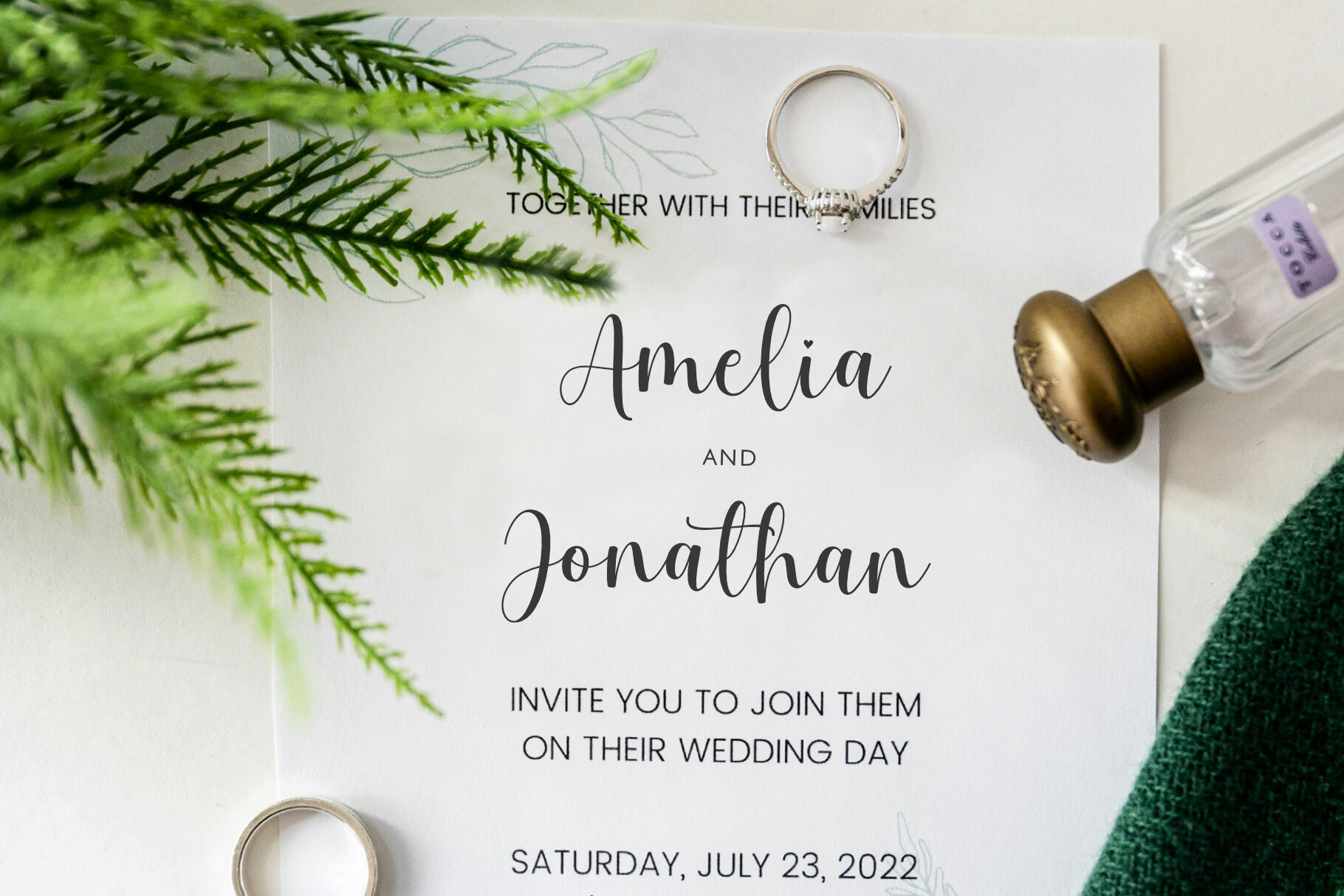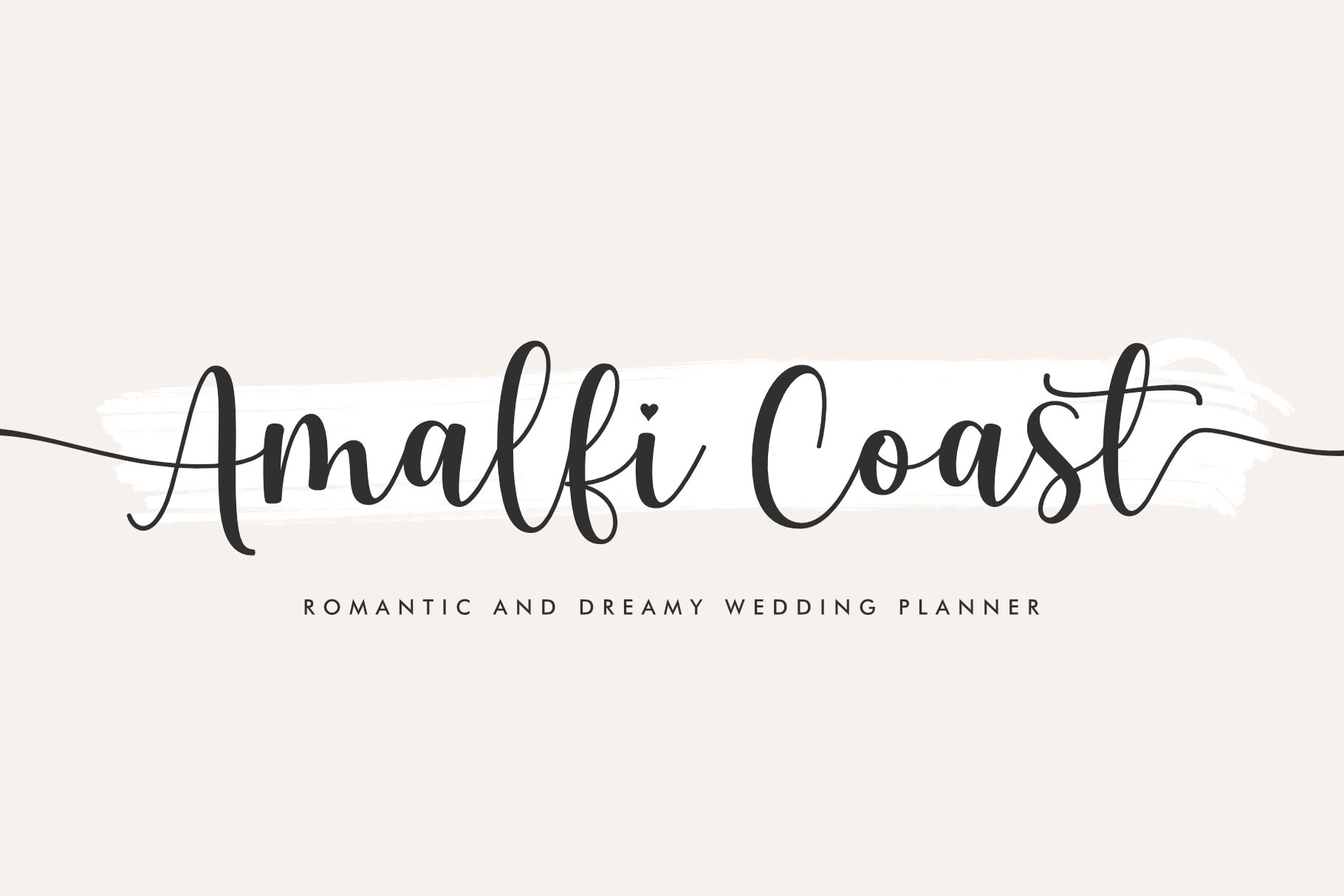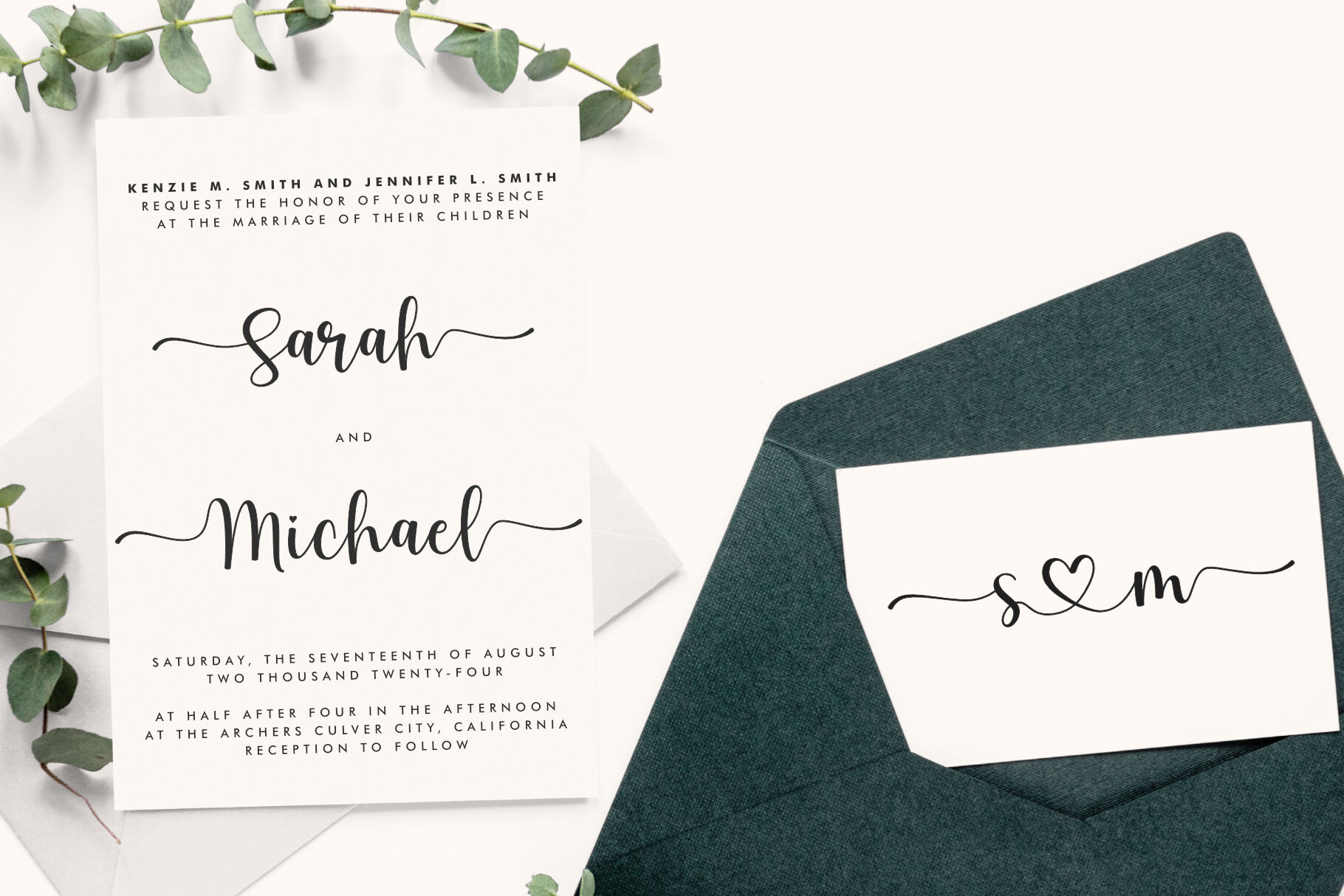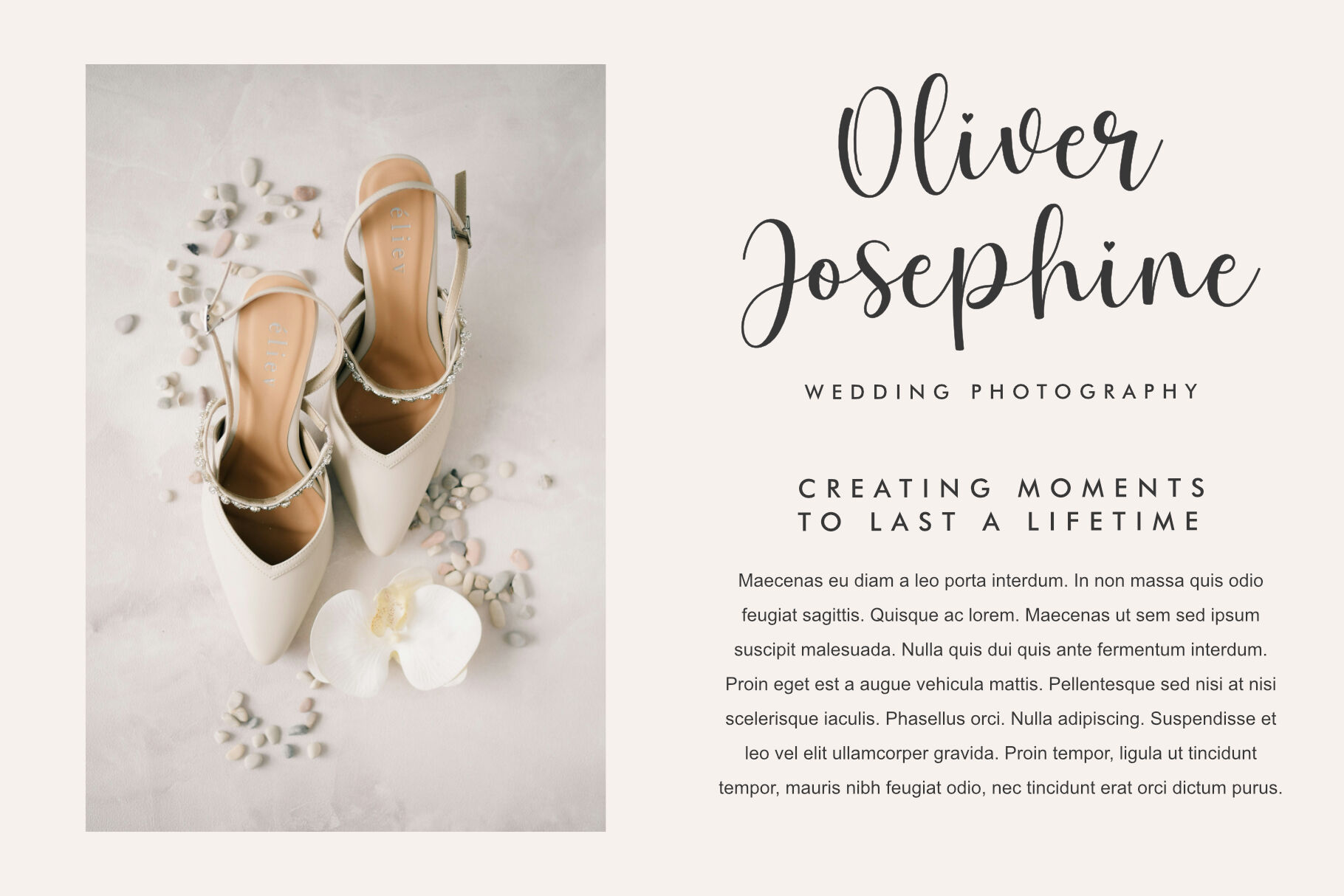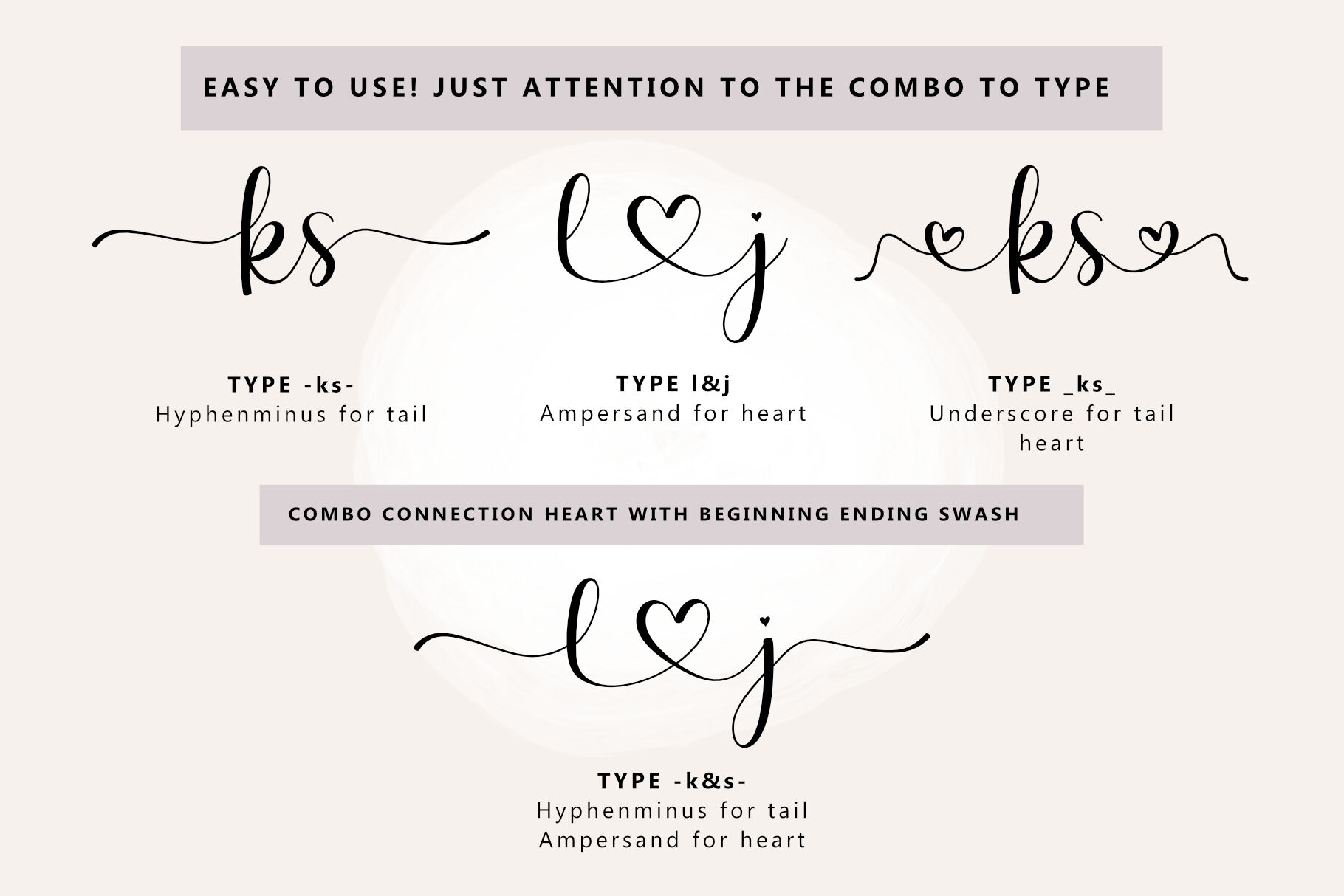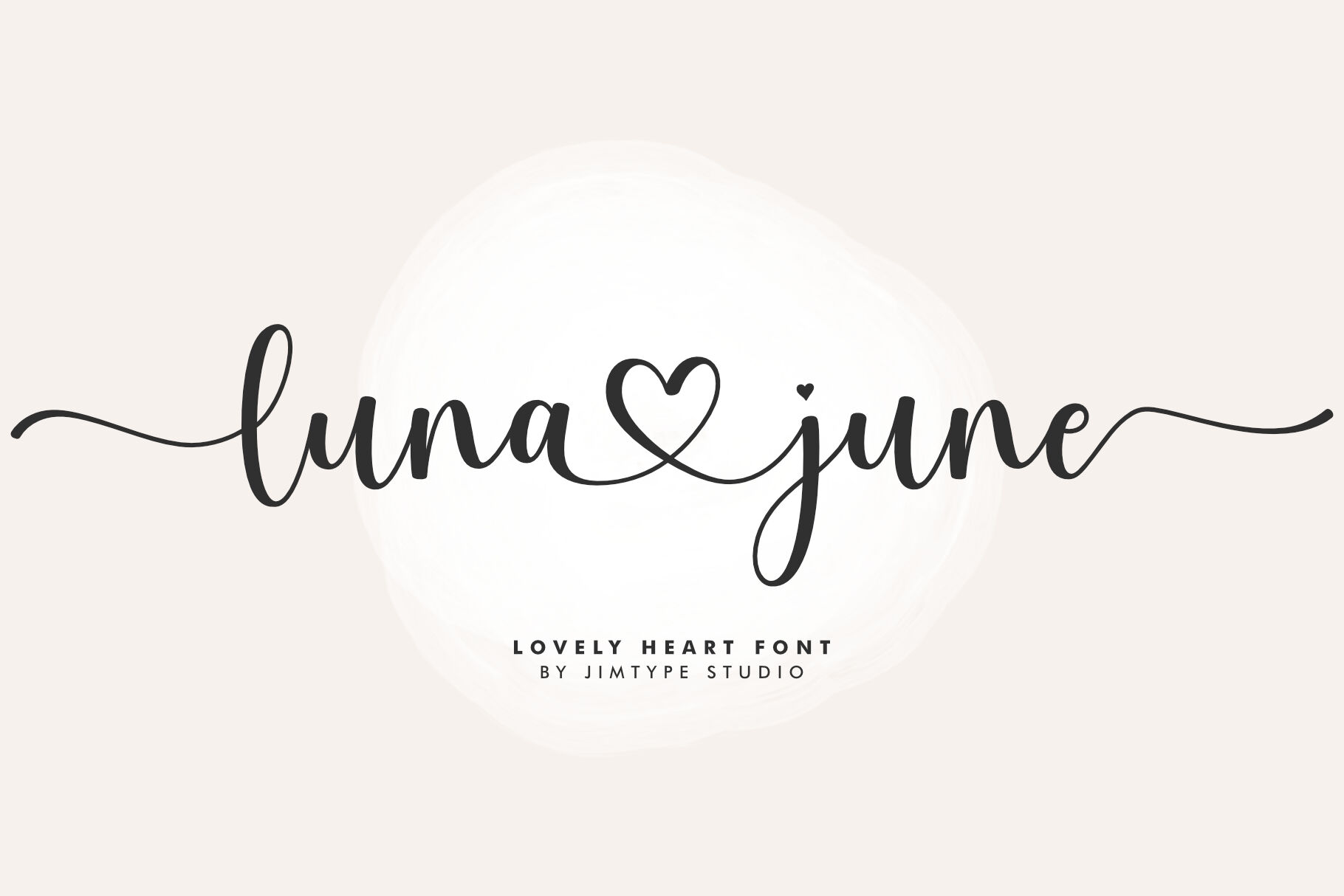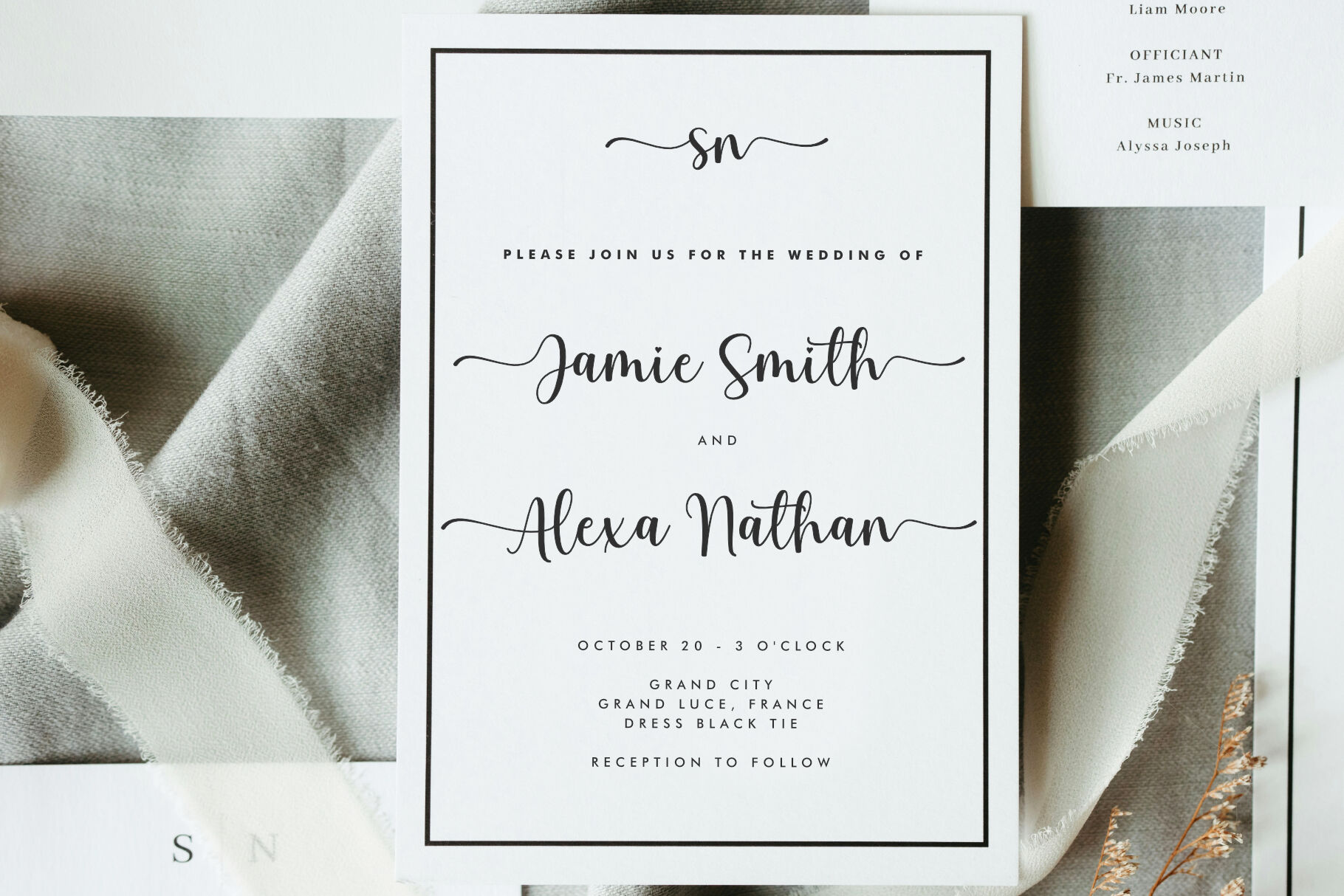
Luna June - Branding Wedding Font
By Jimtype Studio in Fonts / Script
Luna June is a sweet, lovely, and modern calligraphy font with a connected heart. This beautiful script is particularly well suited for wedding invitations, logos, branding, watermarks, save-the-date cards, and feminine branding. Luna June includes a full set of Uppercase and Lowercase Basic Characters, Numbers, and Punctuation. Also, it contains ligatures and character hearts to perfectly re-create sweet calligraphy. Inside the File: Luna June Font (OTF,TTF, WOFF, WOFF2) Thank you so much We hope you enjoy and are happy creating! ~ Jimtype Studio